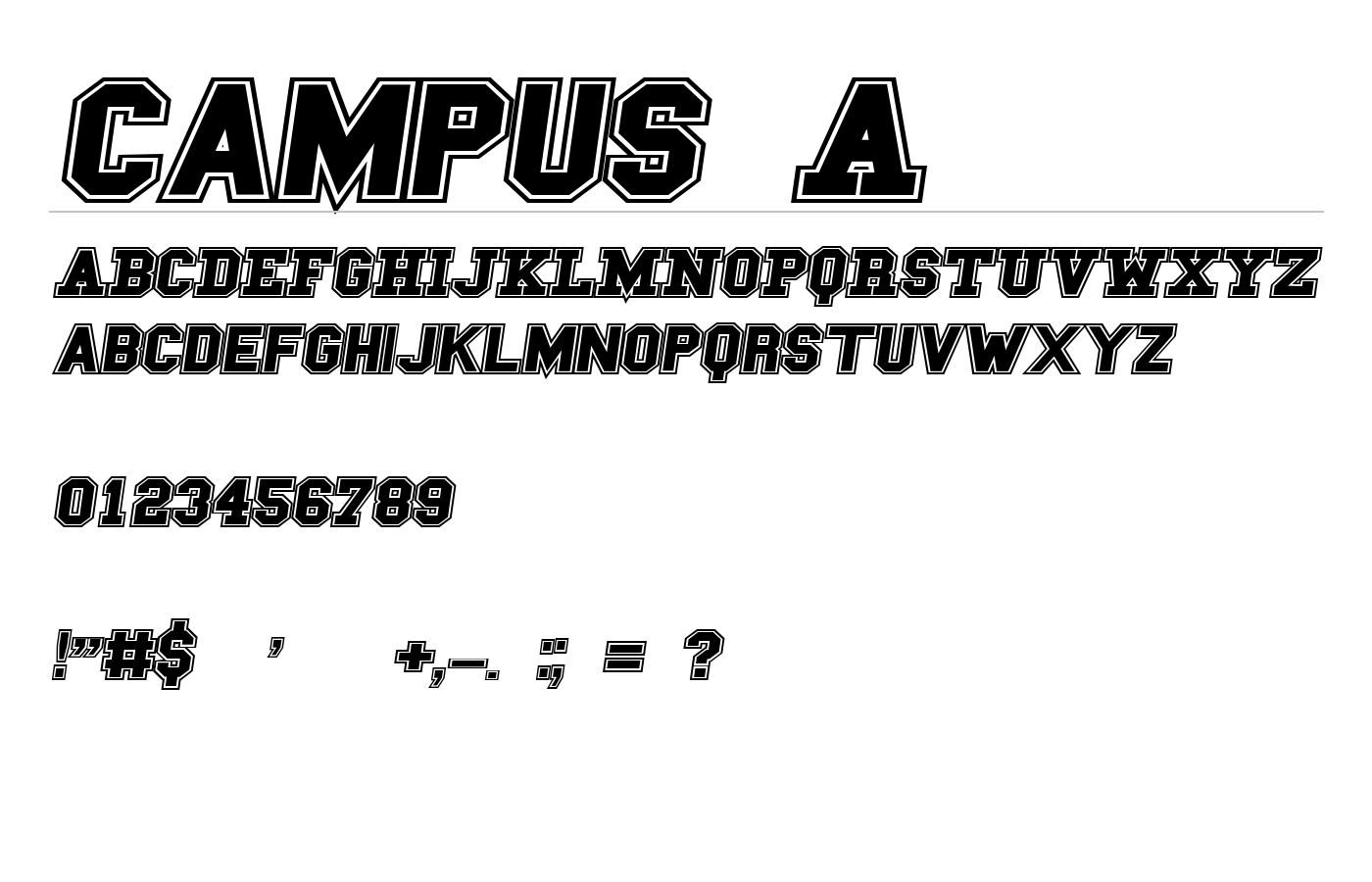
Campus A is a bold, slab serif display font with a strong, athletic vibe, featuring thick blocky letters outlined by sharp, angular edges that give it a dynamic and energetic feel. Its condensed width and high contrast between solid fills and outlined strokes make it perfect for sports branding, team logos, and collegiate designs that need a confident, vintage-inspired style. This font works best in large sizes where its bold details can command attention on posters, apparel, and headlines.
Campus A Font
About Campus A Font
| Font family | Campus A Font |
| Designer | Leonard Posavec |